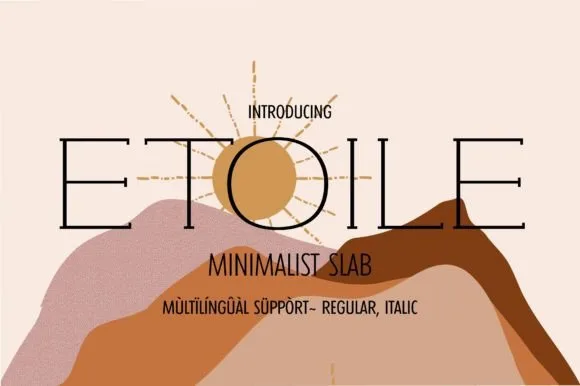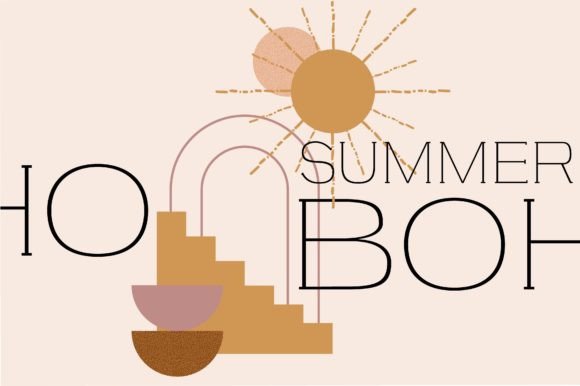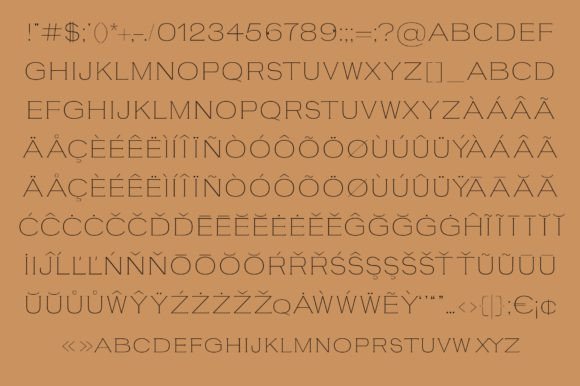
Etoile Font
ETOILE FONT SPECIMEN
Etoile is a wide extended slab serif typeface. The glyphs were designed and thought to reflect the elegant minimalist concept that could be useful in a lot of design themes such as fashion design, packaging, posters, magazine covers, and social posts. Add it to your fonts library, and you can confidently use it to produce astonishing creations!